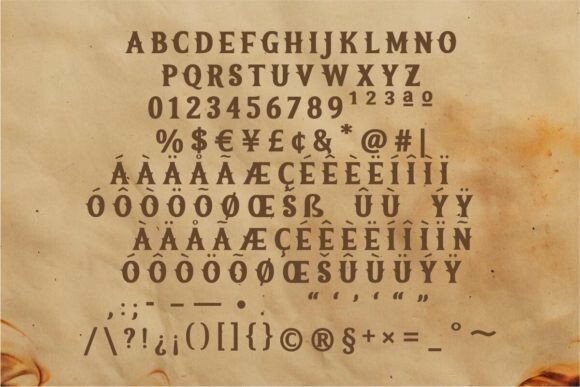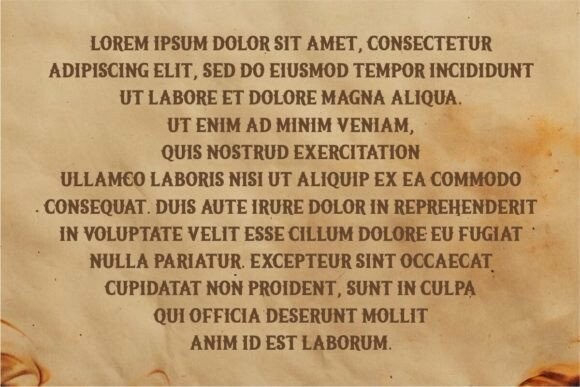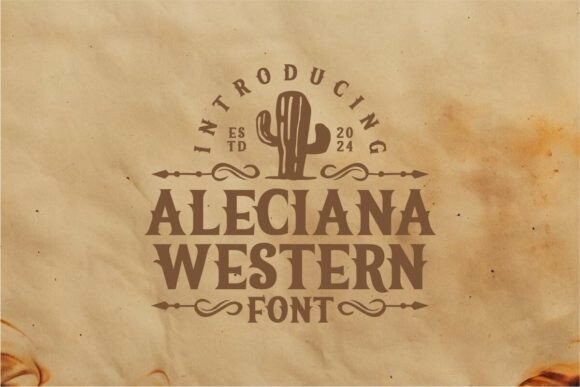
Aleciana Western Font
Aleciana Western Font is a stylish retro serif font that effortlessly blends classic charm with a touch of modern flair. Its timeless design adds a touch of sophistication to any project, making it a versatile choice for various applications. With Aleciana Western, you can achieve a balance of vintage aesthetics and contemporary appeal, making it perfect for posters, branding, or any creative endeavor that calls for a hint of retro elegance. Upgrade your design with Aleciana’s classic yet trendy vibe for a standout visual impact.